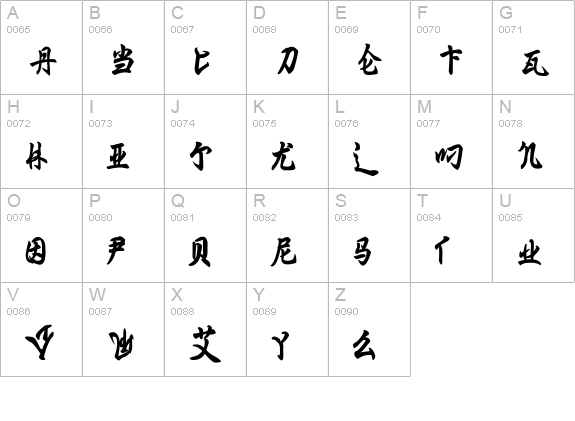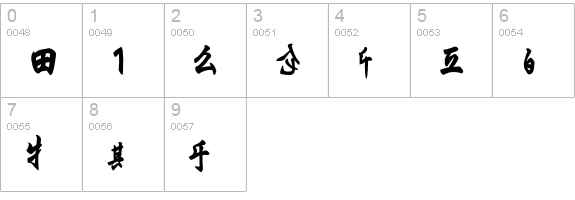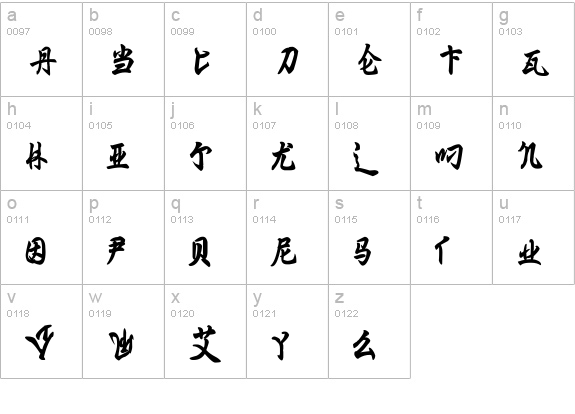
Ming Imperial Font Details
Ming Imperial is a stunning font that encapsulates the elegance and grandeur of the traditional Ming Dynasty era. With its intricate strokes and harmonious curves, this font exudes a sense of regality and sophistication. Each character is meticulously crafted to capture the essence of Chinese calligraphy, making it perfect for projects that require a touch of cultural authenticity and timeless beauty. What sets Ming Imperial apart is not only its exceptional design, but also the fact that it is freely available to download at FontsMarket.com. This means that you can effortlessly bring a touch of imperial charm to your designs without any financial burden. Whether you are designing invitations for a formal event, creating branding materials for a luxurious brand, or simply adding a touch of elegance to your personal projects, Ming Imperial is the ideal choice. The versatility of Ming Imperial allows it to be used in various mediums, from print to digital. Its stunning details are sure to captivate viewers and leave a lasting impression. The font's legibility ensures that your message is conveyed clearly, while its unique style adds a touch of artistic flair. Download Ming Imperial today from FontsMarket.com and unlock the beauty of traditional Chinese calligraphy. With its free availability, you can explore the rich history and cultural significance of the Ming Dynasty, all while adding a touch of timeless elegance to your designs. Whether you are a professional designer or a hobbyist, Ming Imperial is a must-have font that will elevate your creations to new heights.